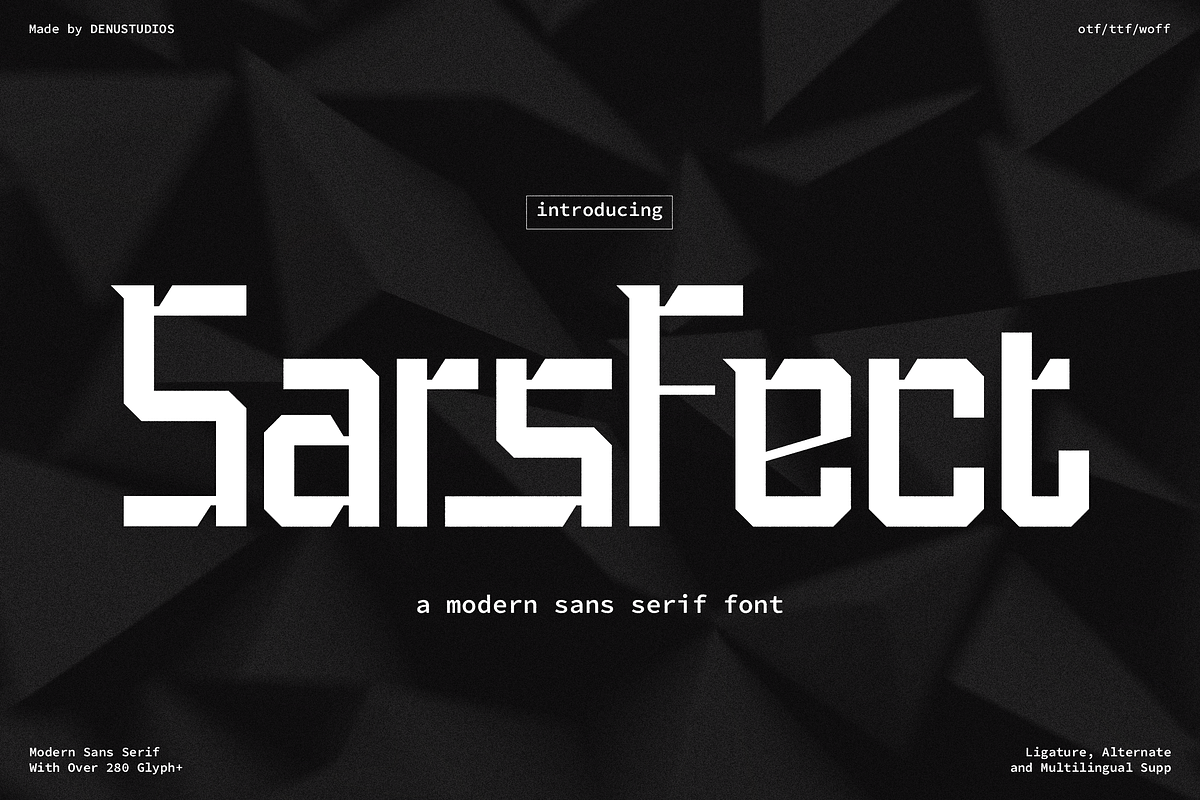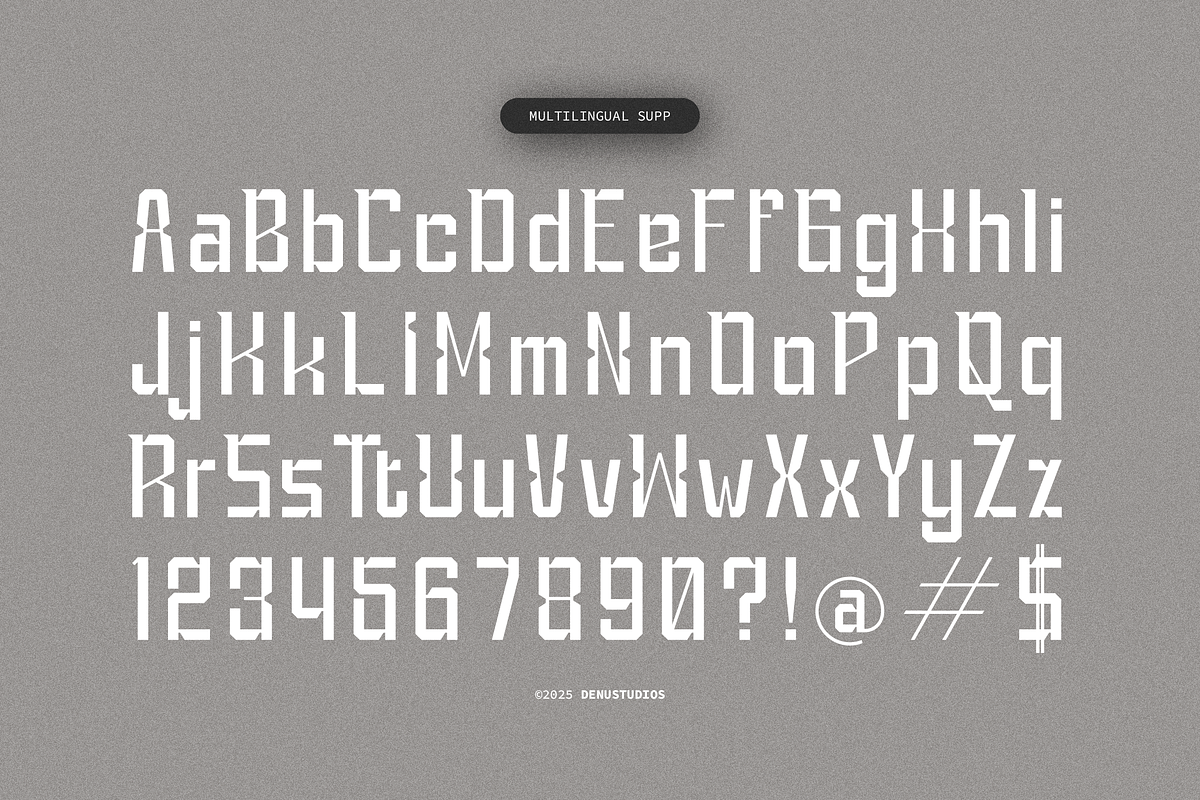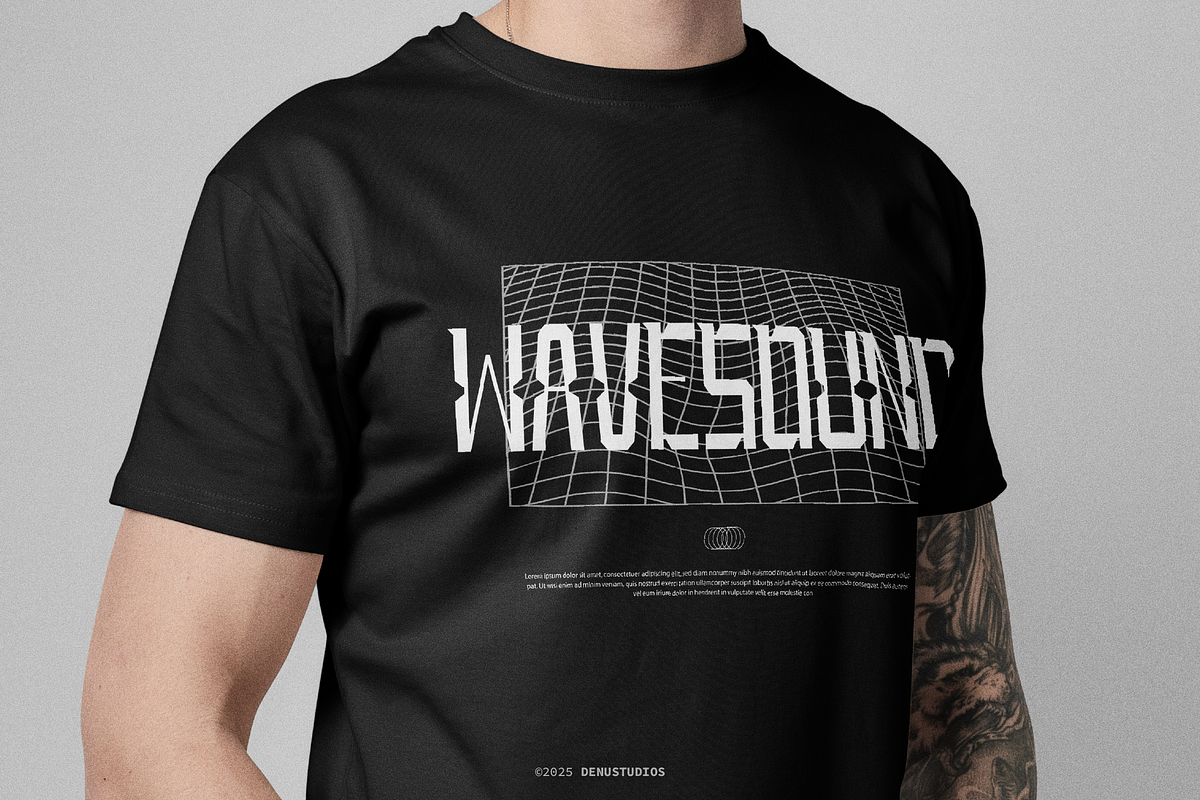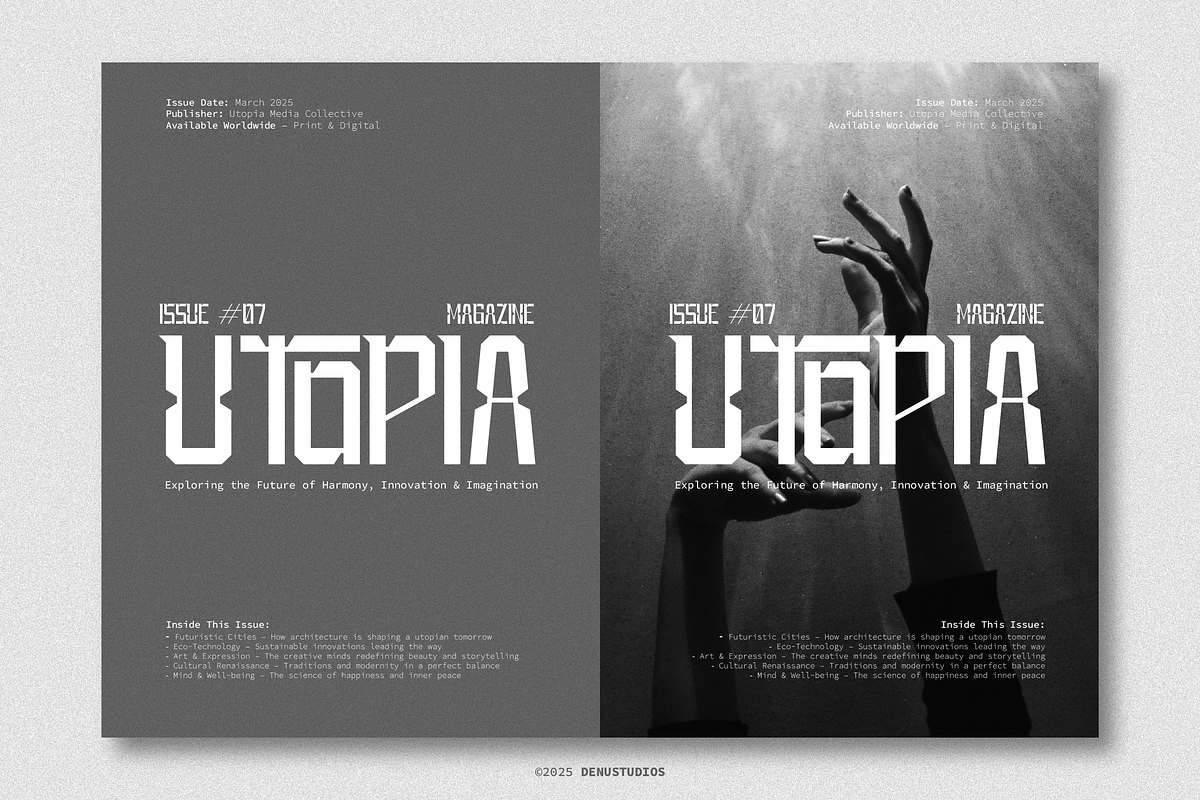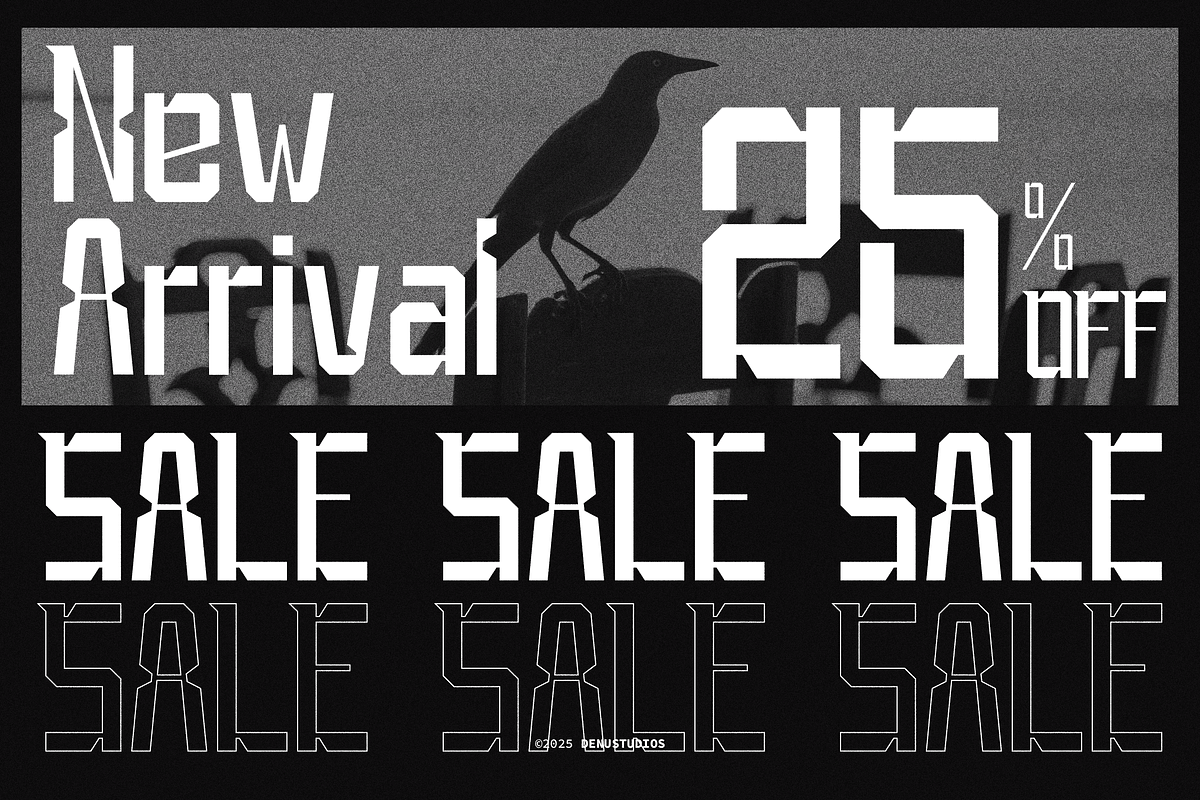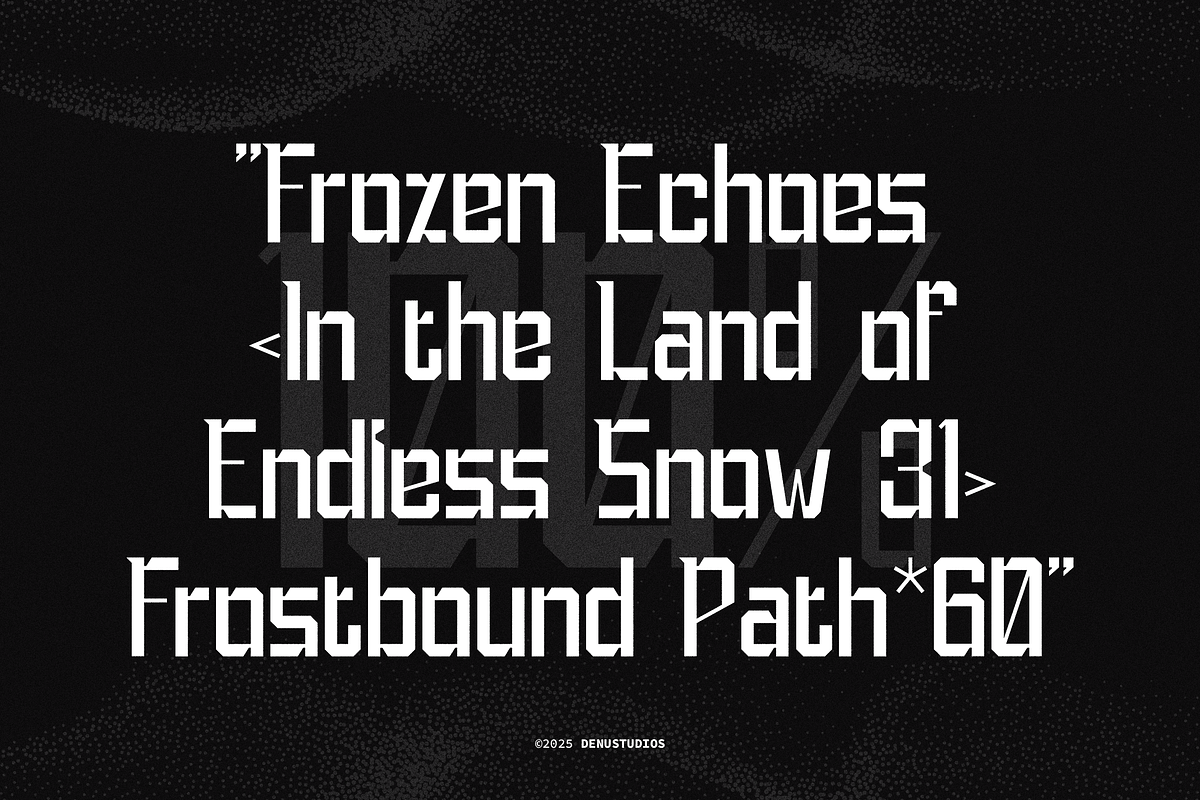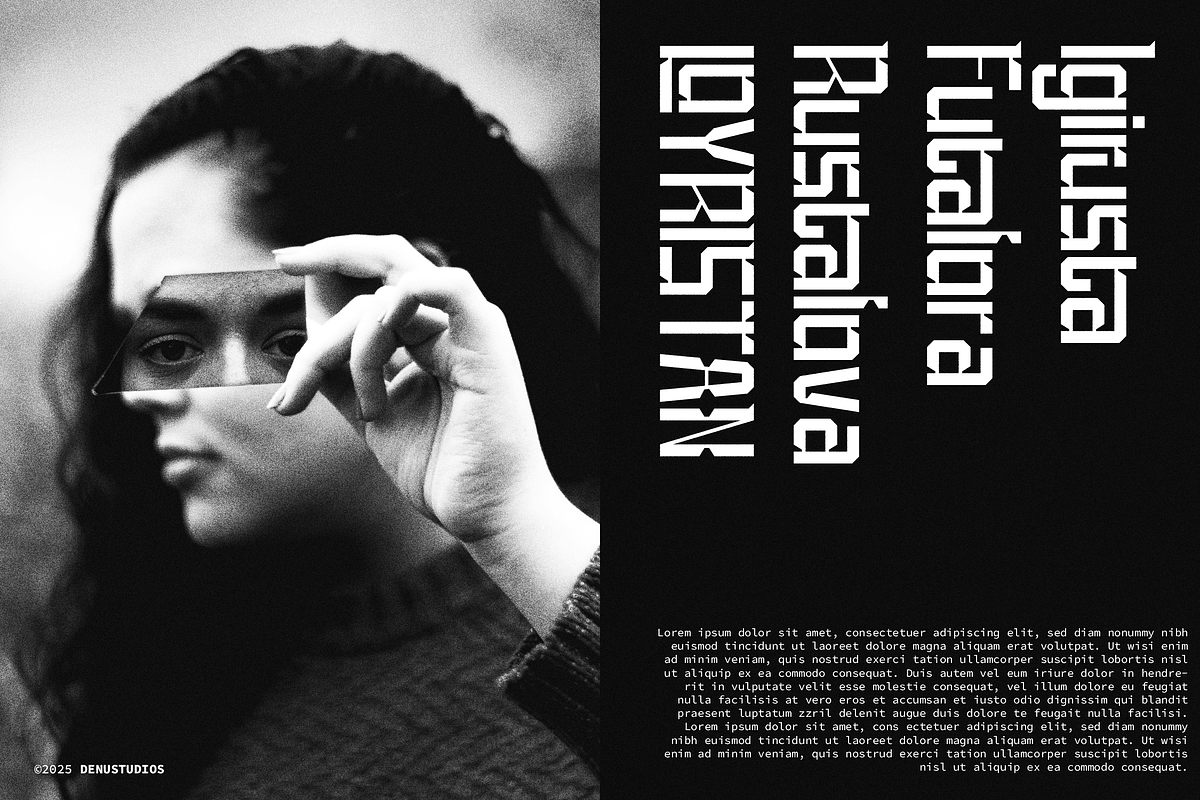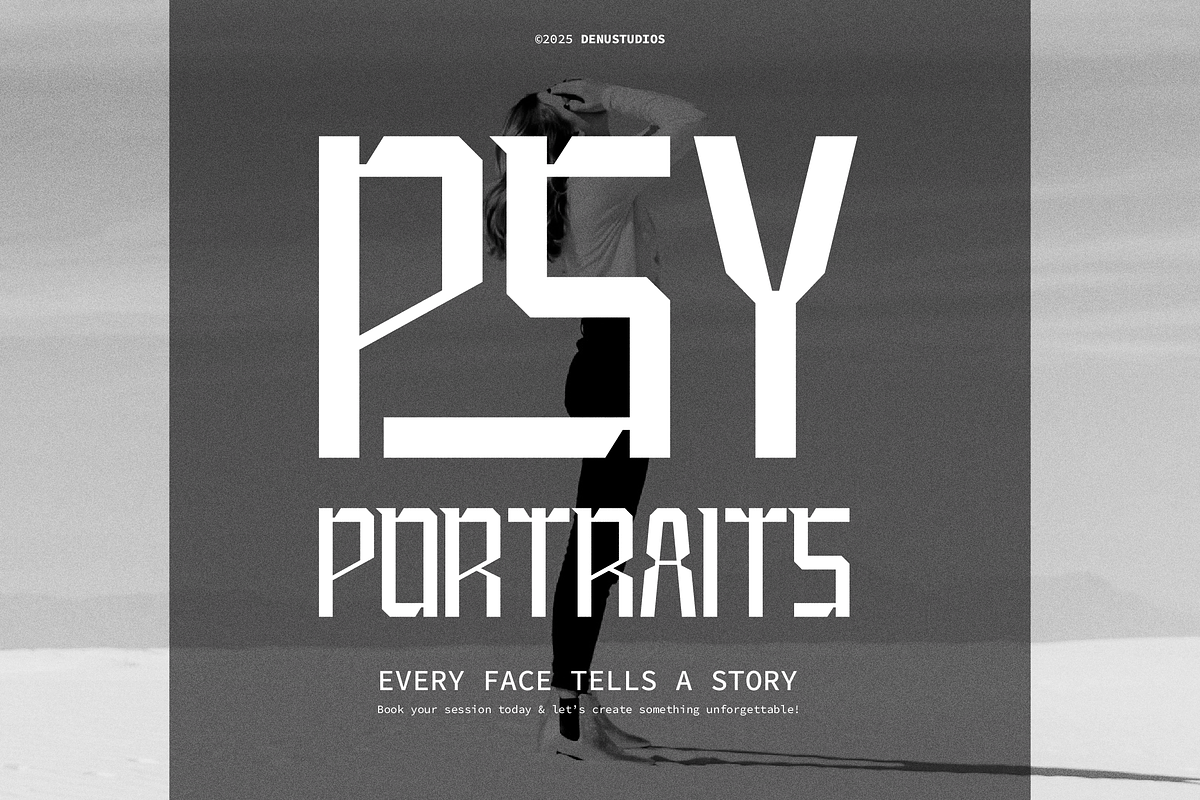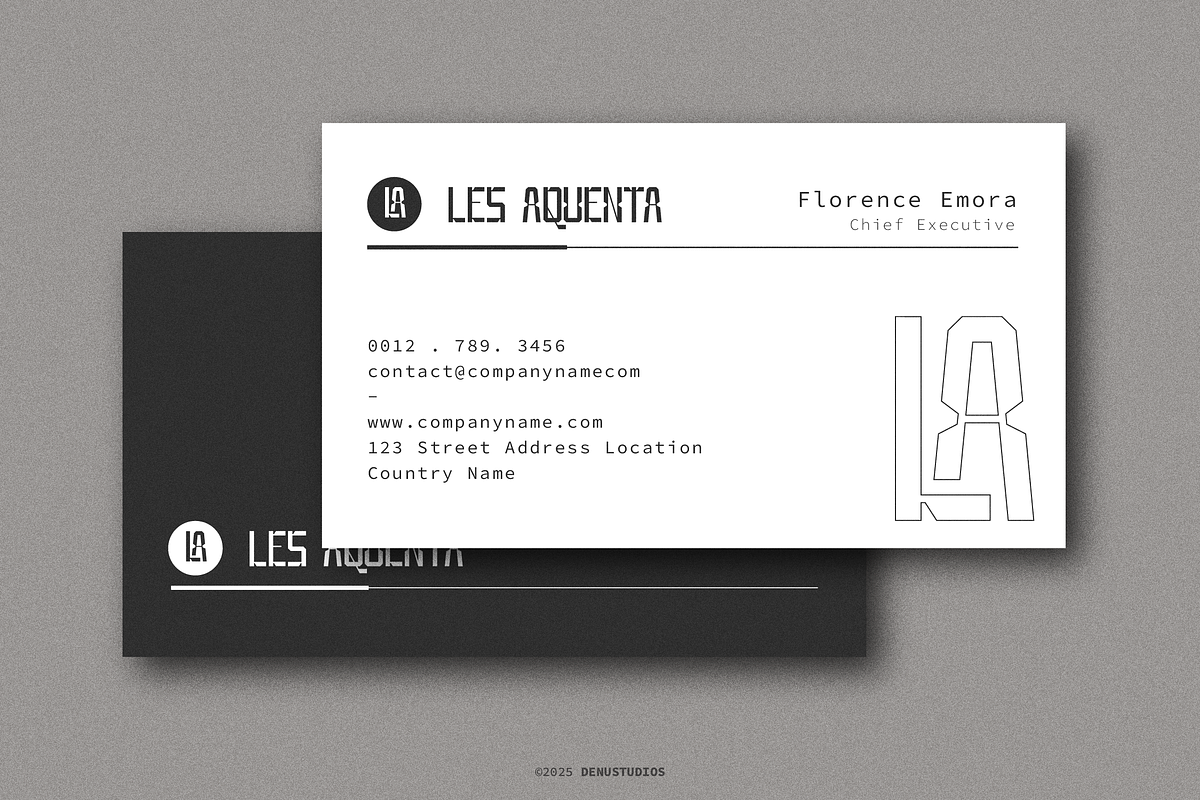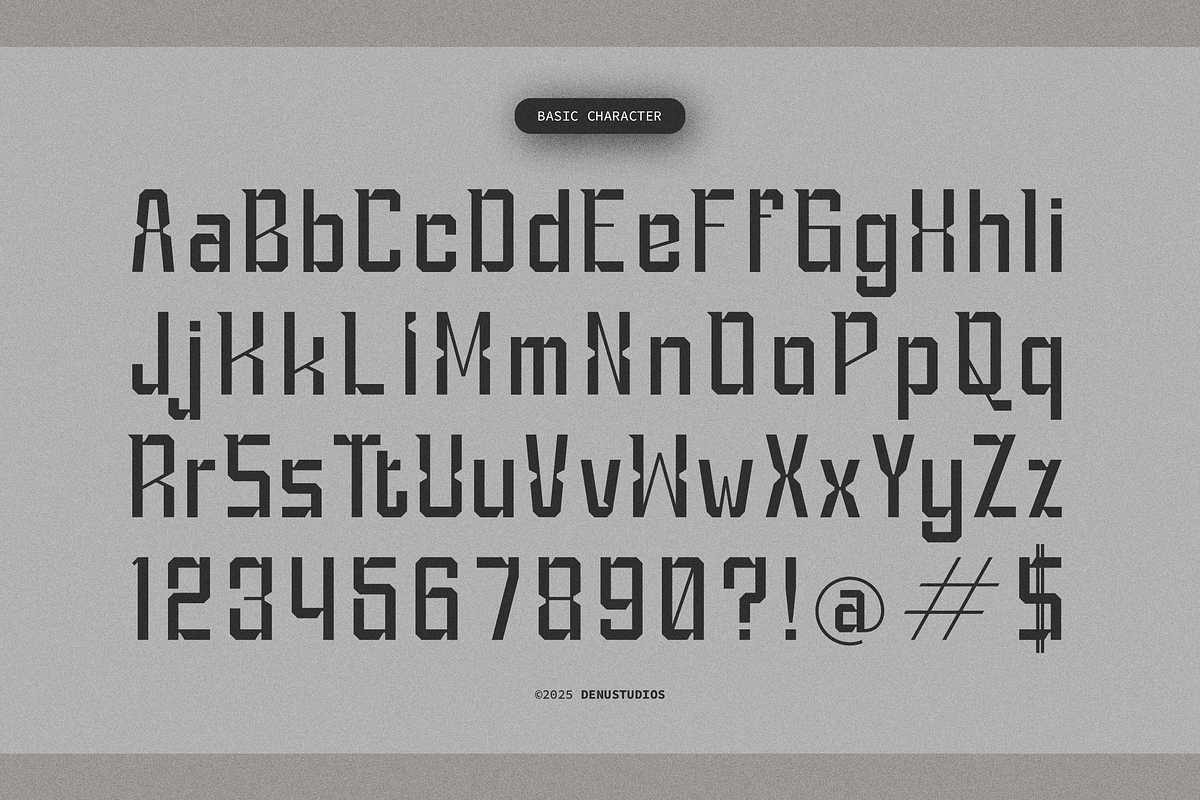
Sars Fect | Modern Sans Serif
Sars Fect | Modern Sans Serif, from Denustudios, suitable for any projects such as: logos, branding projects, homeware designs, product packaging, mugs, quotes, posters, shopping bags, t-shirts, book covers, name card, invitation cards, greeting cards, label, photography, watermark, special events, and all your other lovely projects that need a Modern Sans Serif taste.